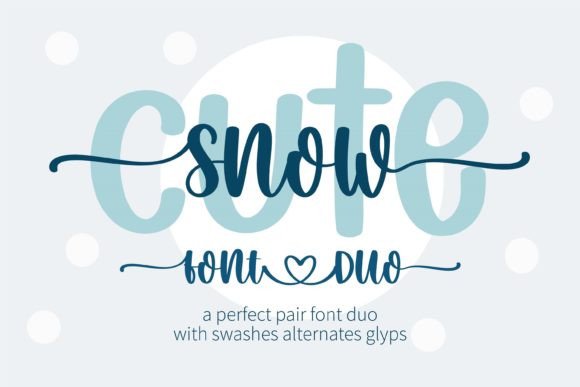
Introducing Snow Cute Duo Font - the perfect choice for anyone looking for the best font for labels on Cricut. Created by BitongType, this handwritten duo font features both sans serif and script styles, making it versatile and easy to use in a wide range of design projects.
Snow Cute's natural and unique style will elevate your designs to the next level, providing a touch of personality and charm that is sure to catch the eye of your audience. Whether you're creating labels, packaging, logos, or social media graphics, Snow Cute is the ideal choice for anyone who wants to stand out from the crowd.
One of the best things about Snow Cute is its PUA encoding, which makes it incredibly easy to access all of the glyphs and swashes. This means that you can experiment with different lettering styles and create truly unique designs that reflect your brand's personality and style.
Whether you're a professional designer or just starting out, Snow Cute is the perfect font to help you bring your vision to life. So why settle for a generic font when you can have one that is unique, eye-catching, and packed with personality? Download Snow Cute today and take your designs to the next level!